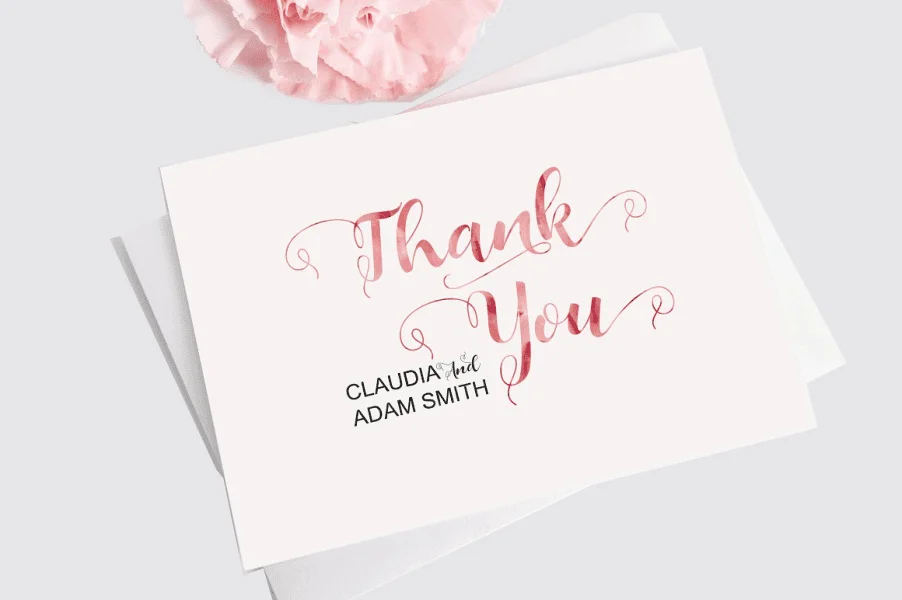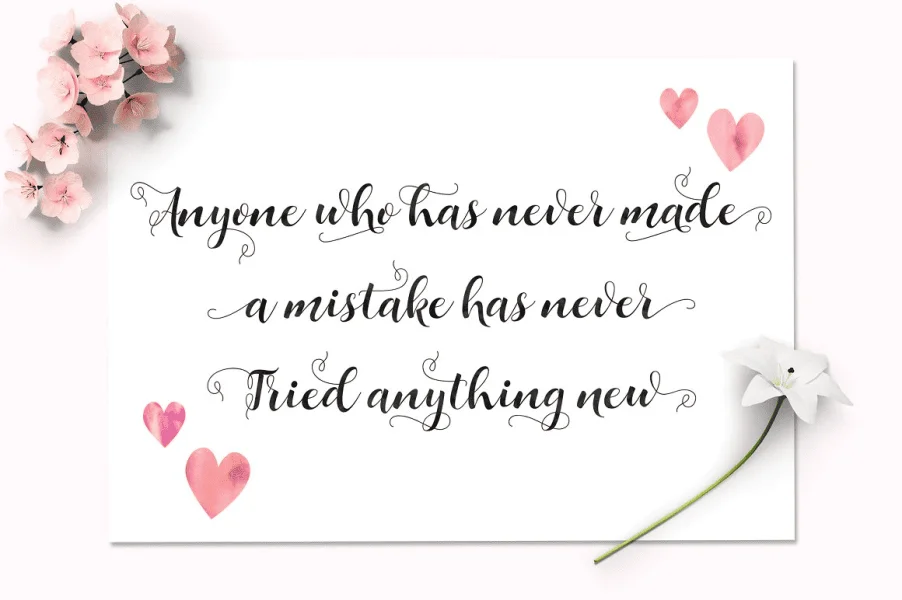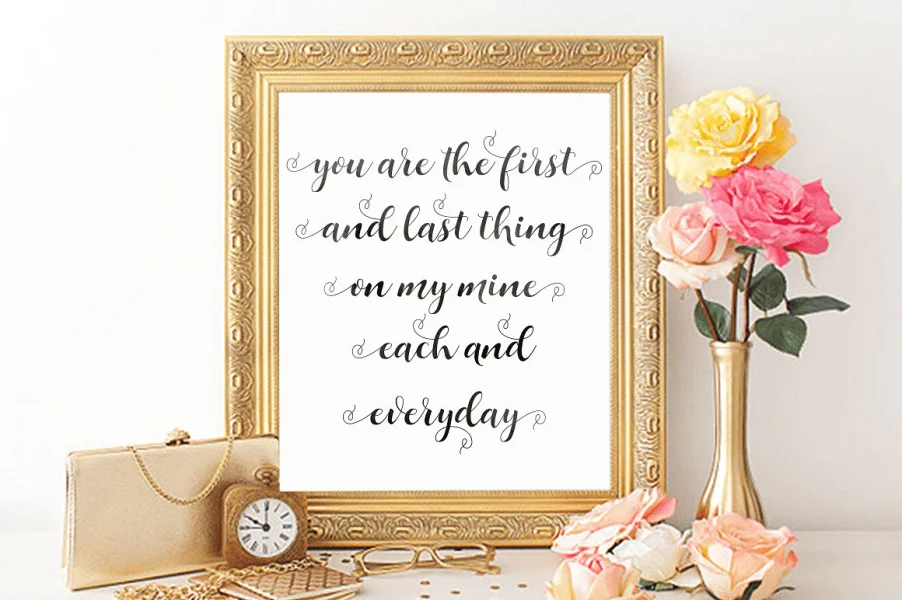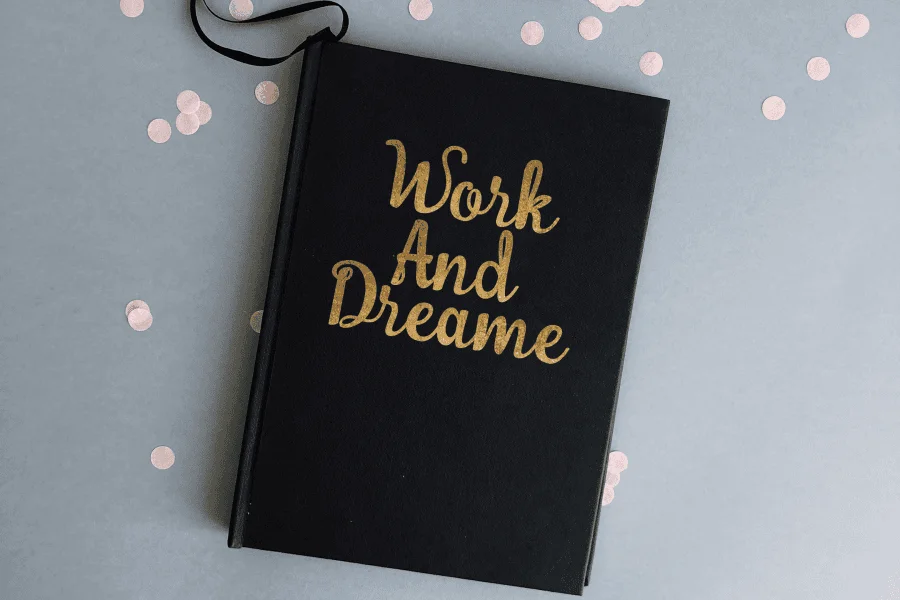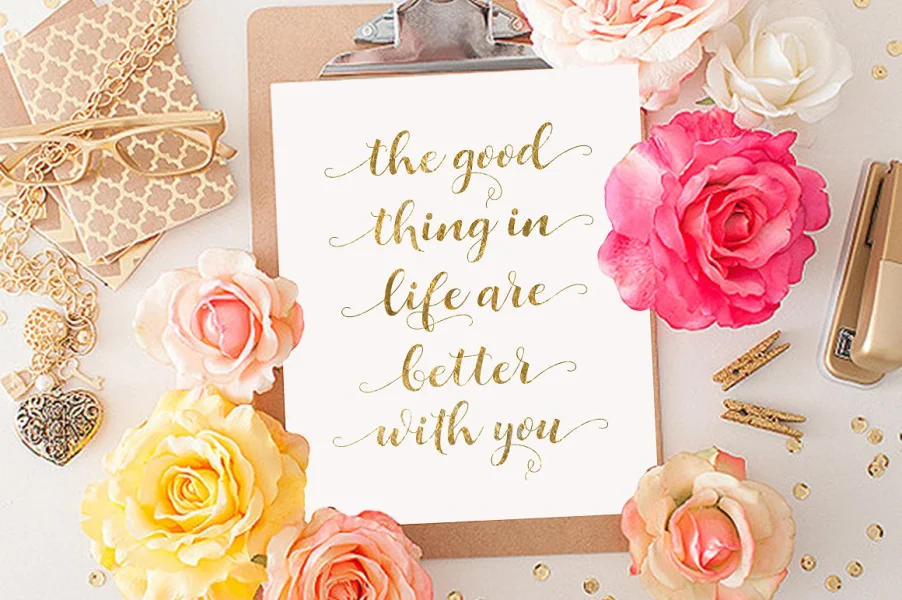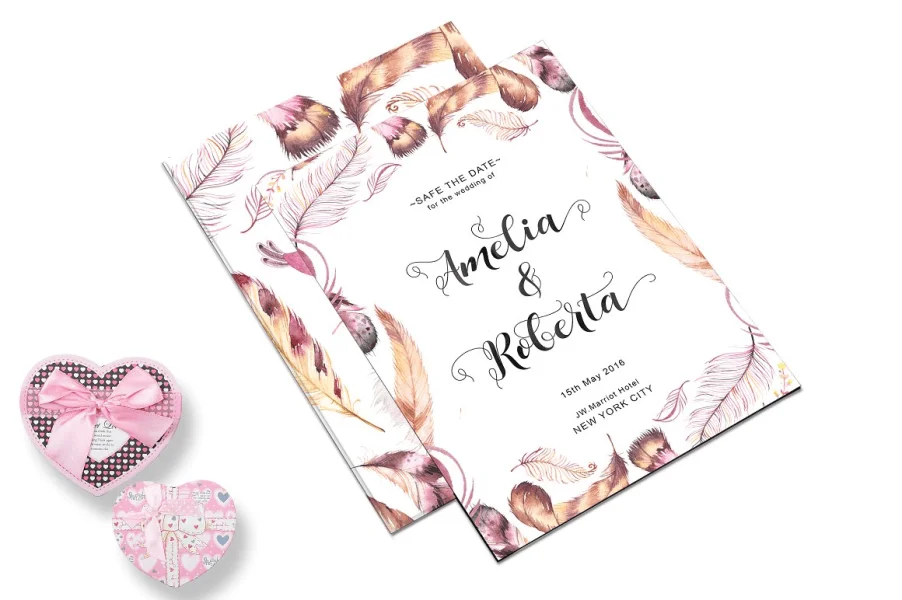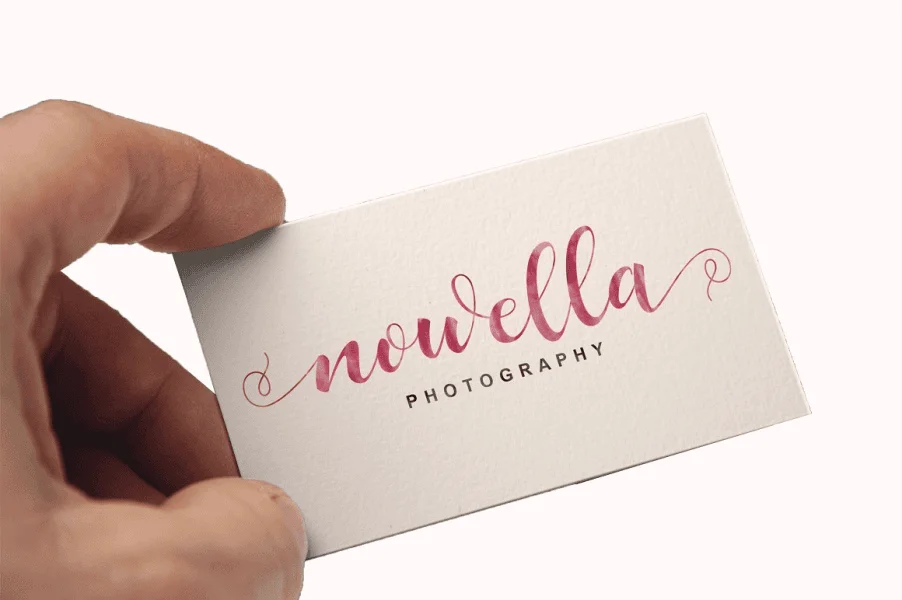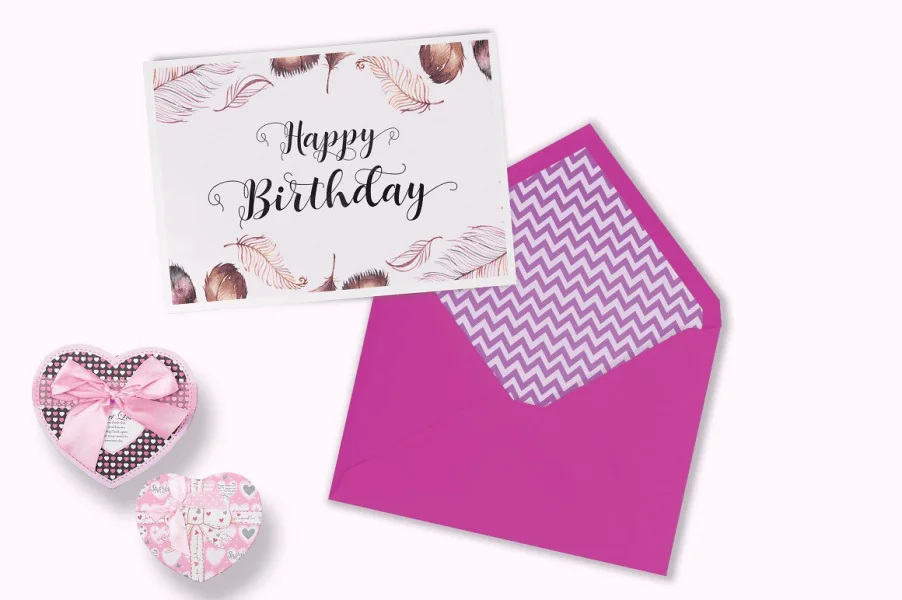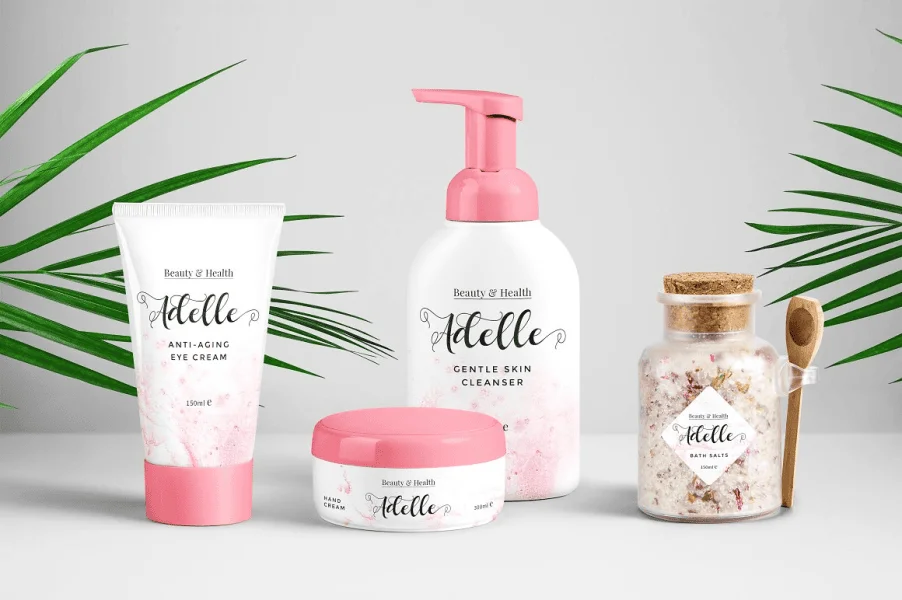
Boulevard is an elegant, modern calligraphy typeface characterized by its fluid, expressive rhythm and high-contrast stroke transitions. The design features dramatic variations between its robust downstrokes and delicate, looping hairpins, creating a lively visual texture. Its letterforms are defined by sweeping, ornate entry and exit swashes that curl gracefully, giving the typeface a romantic and handcrafted personality. The upright posture of the main stems provides structure, while the looping ascenders and descenders inject a sense of natural, calligraphic movement.
This typeface is ideally suited for design contexts that require a personal, sophisticated touch, such as wedding stationery, event invitations, and high-end branding. It excels in editorial layouts, cosmetic packaging, and custom logotypes where its decorative flourishes can serve as a focal point. Boulevard brings an organic warmth and artisanal quality to print and digital media alike, making it a versatile choice for expressive display typography.